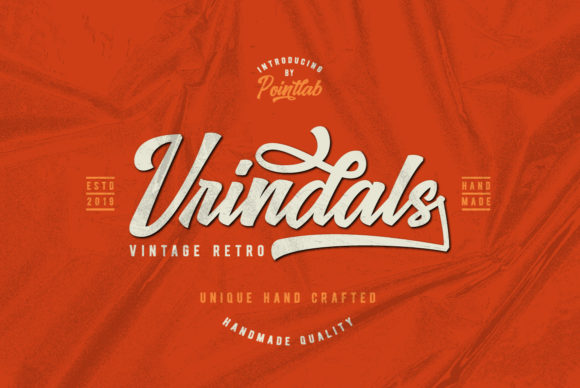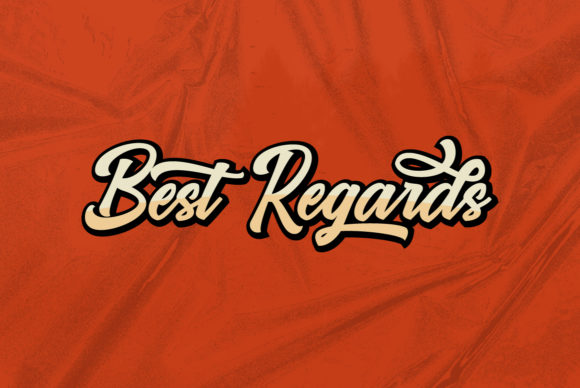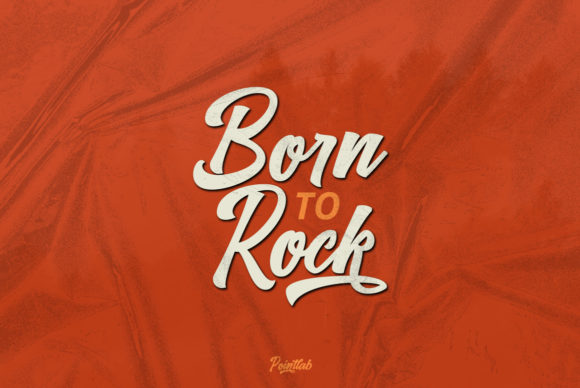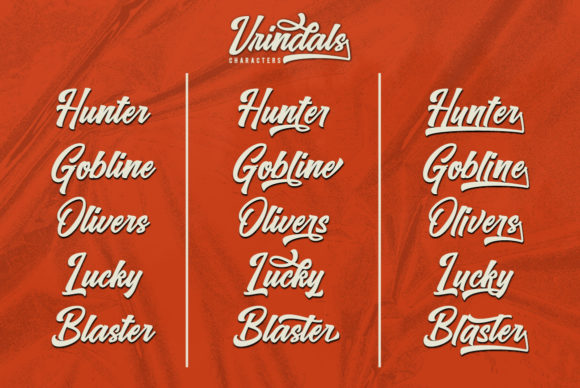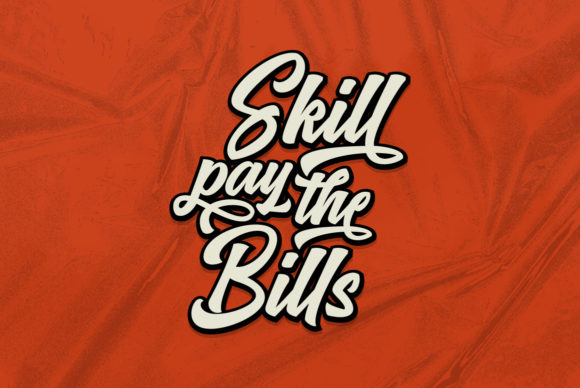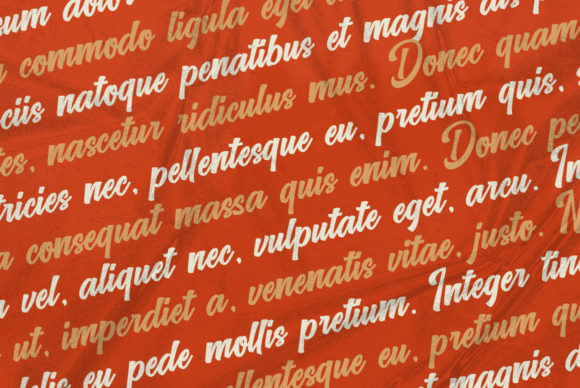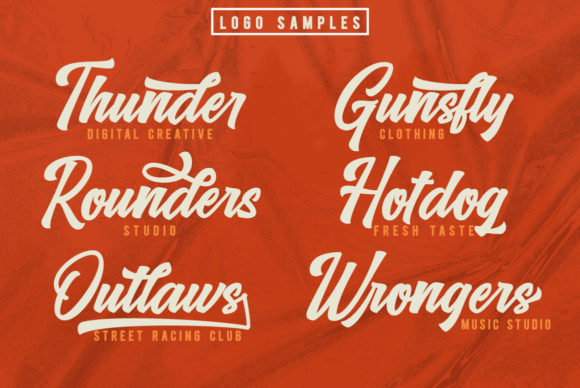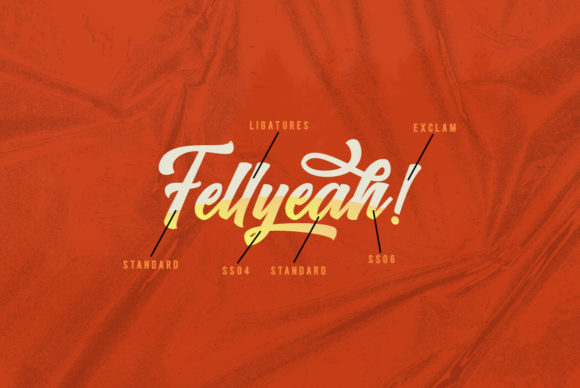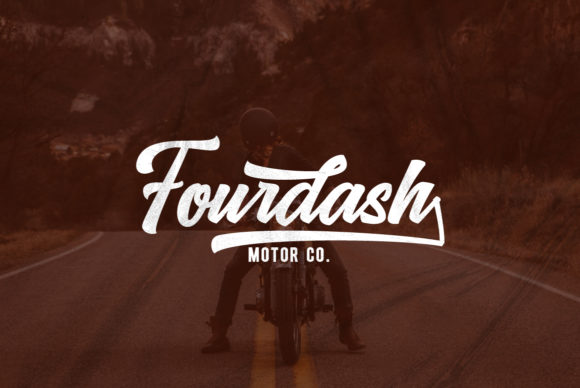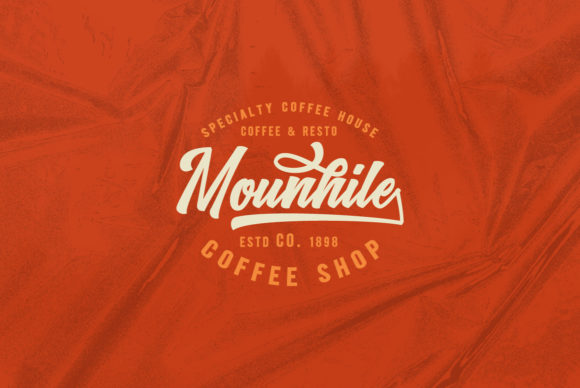
Vrindals Script Font
About Vrindals Script Font
Vrindals is a bold retro script with a cool twist. It’s the perfect font for adding a unique flavor to any design project!